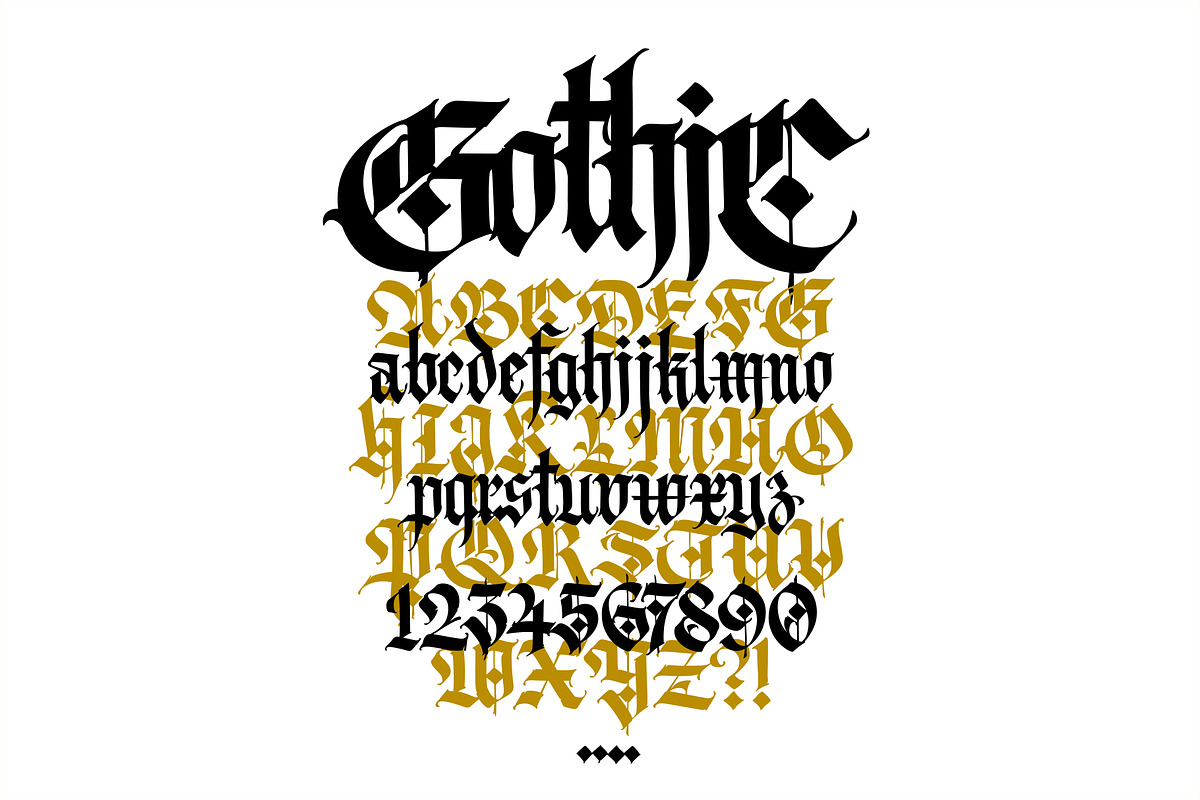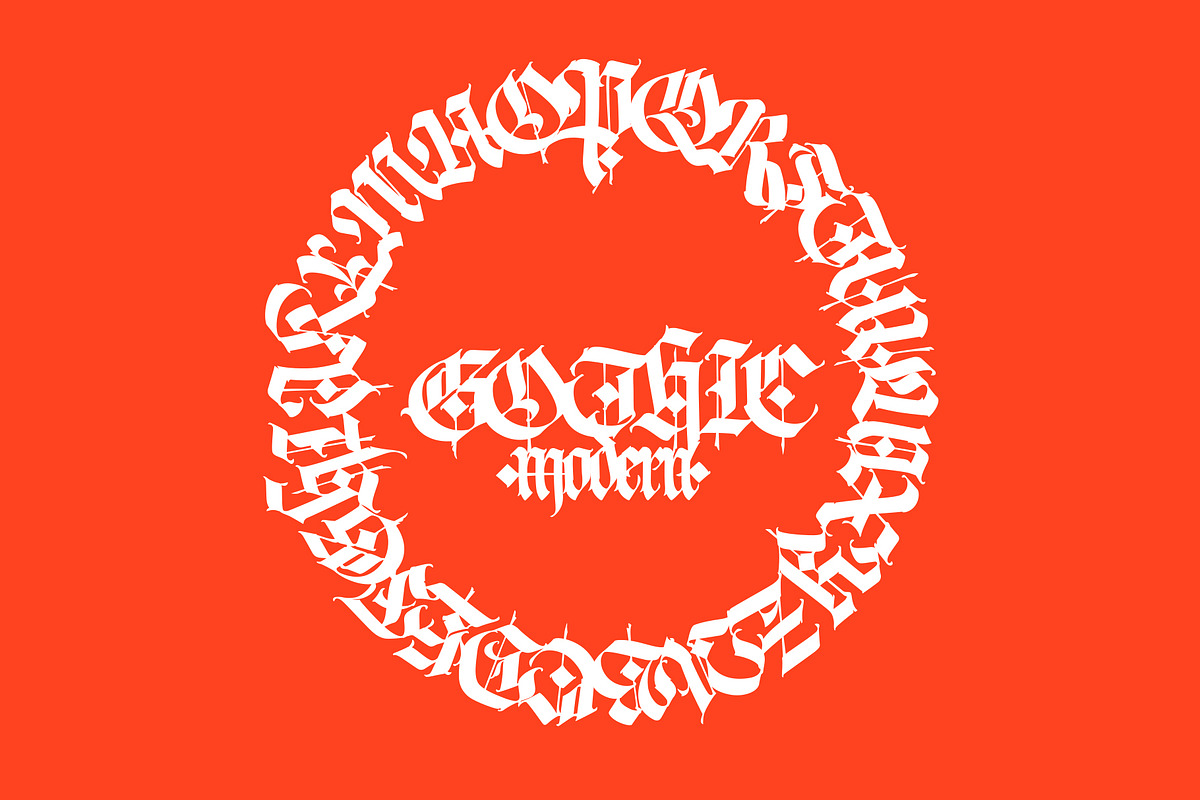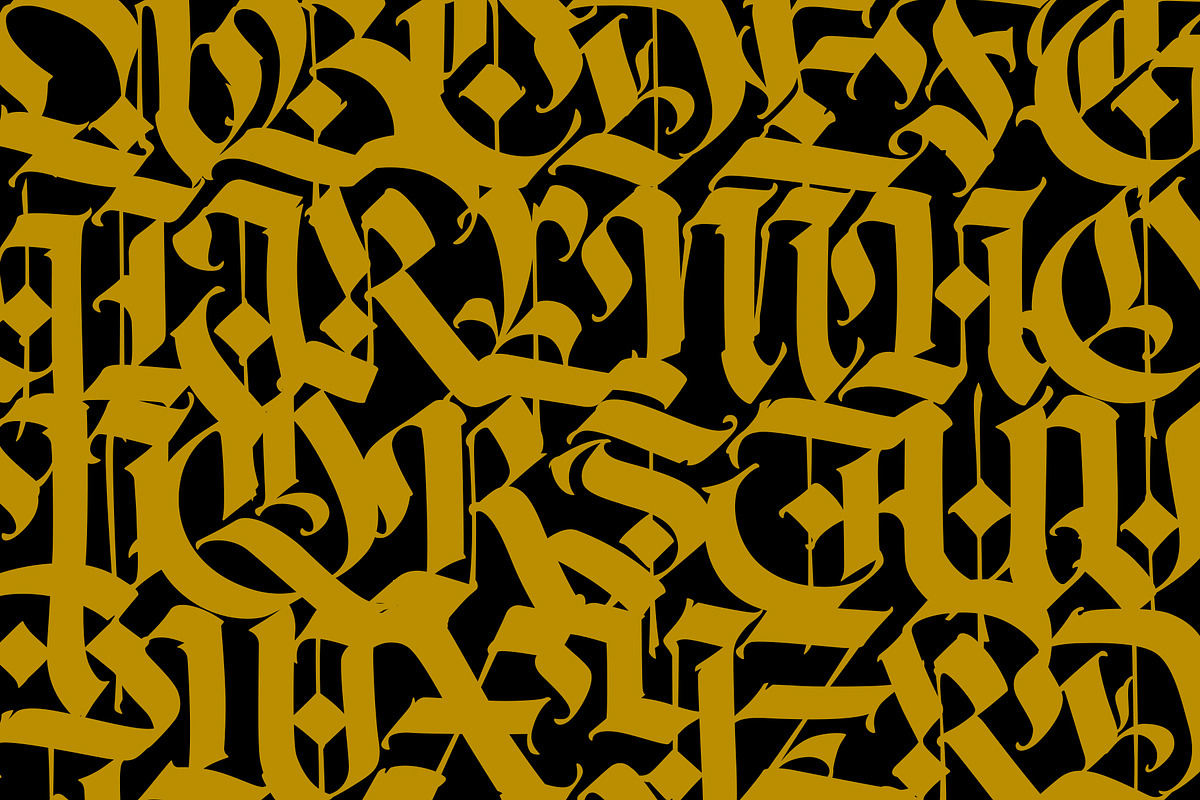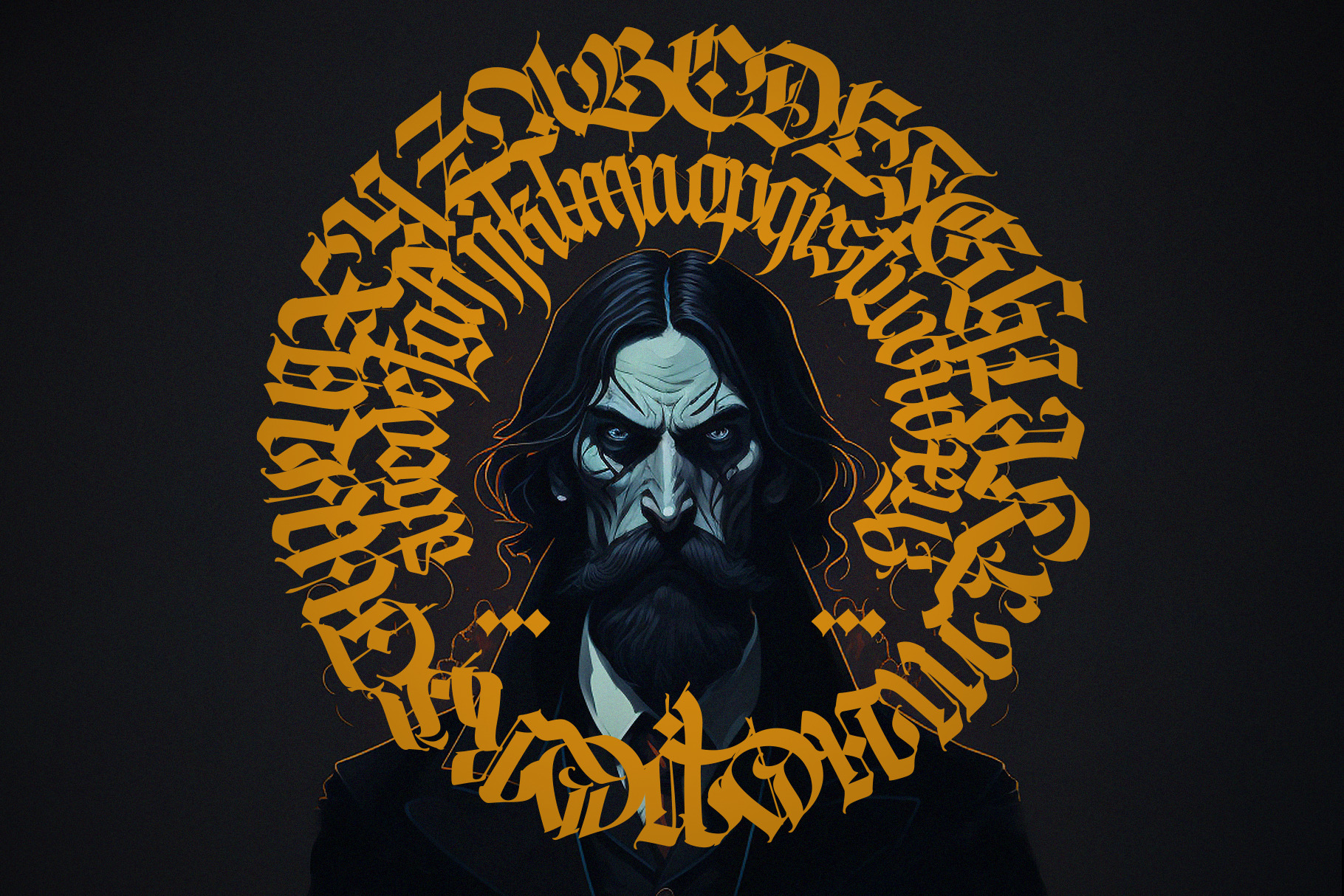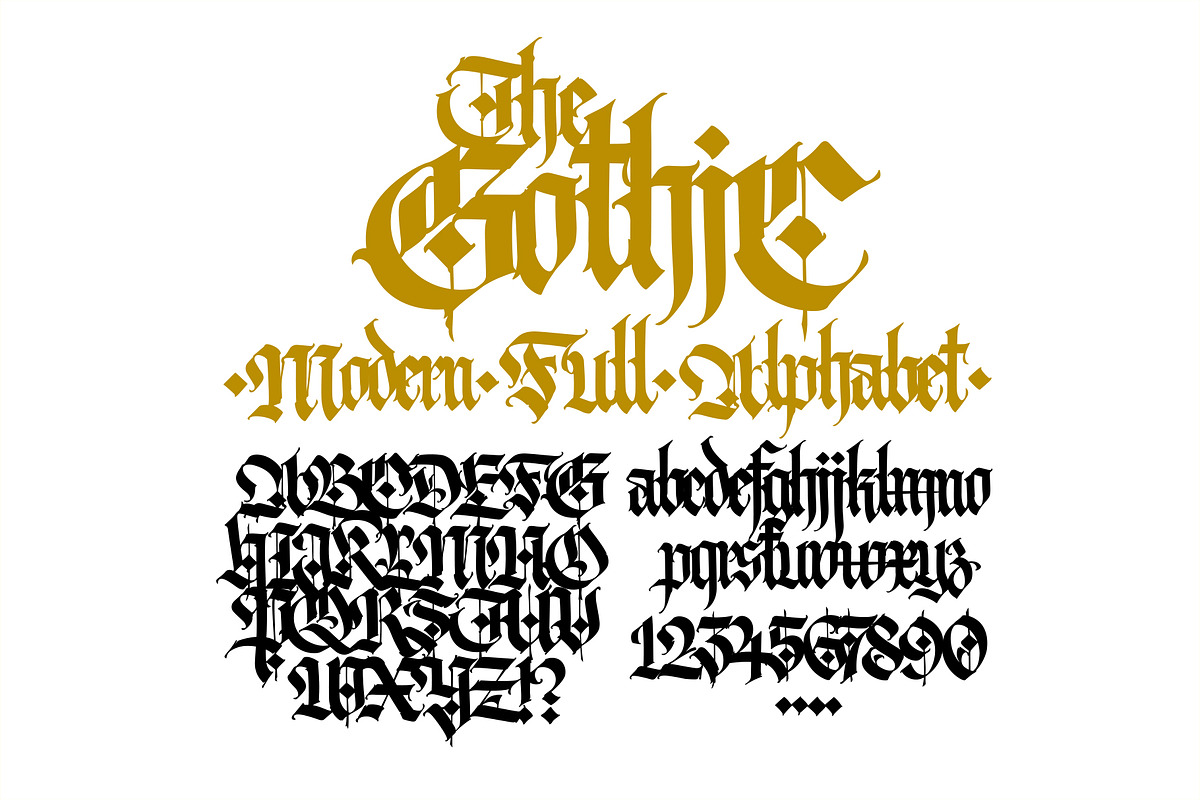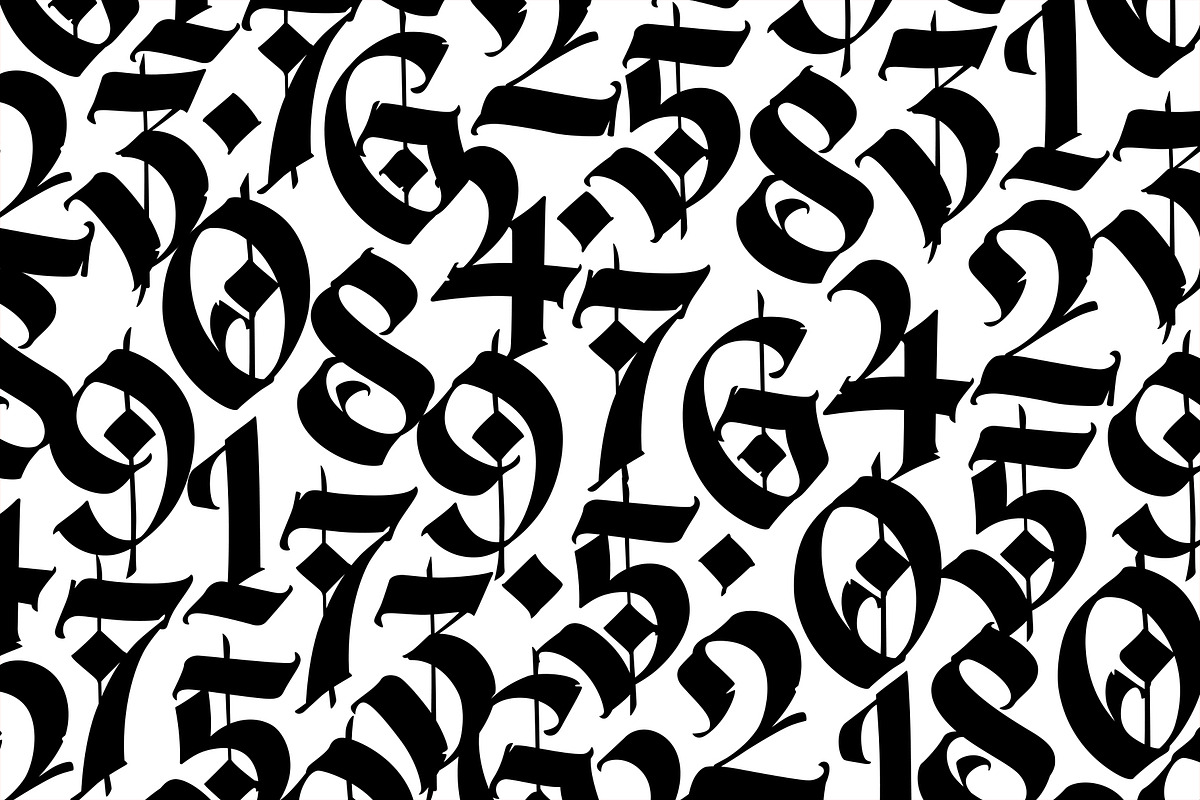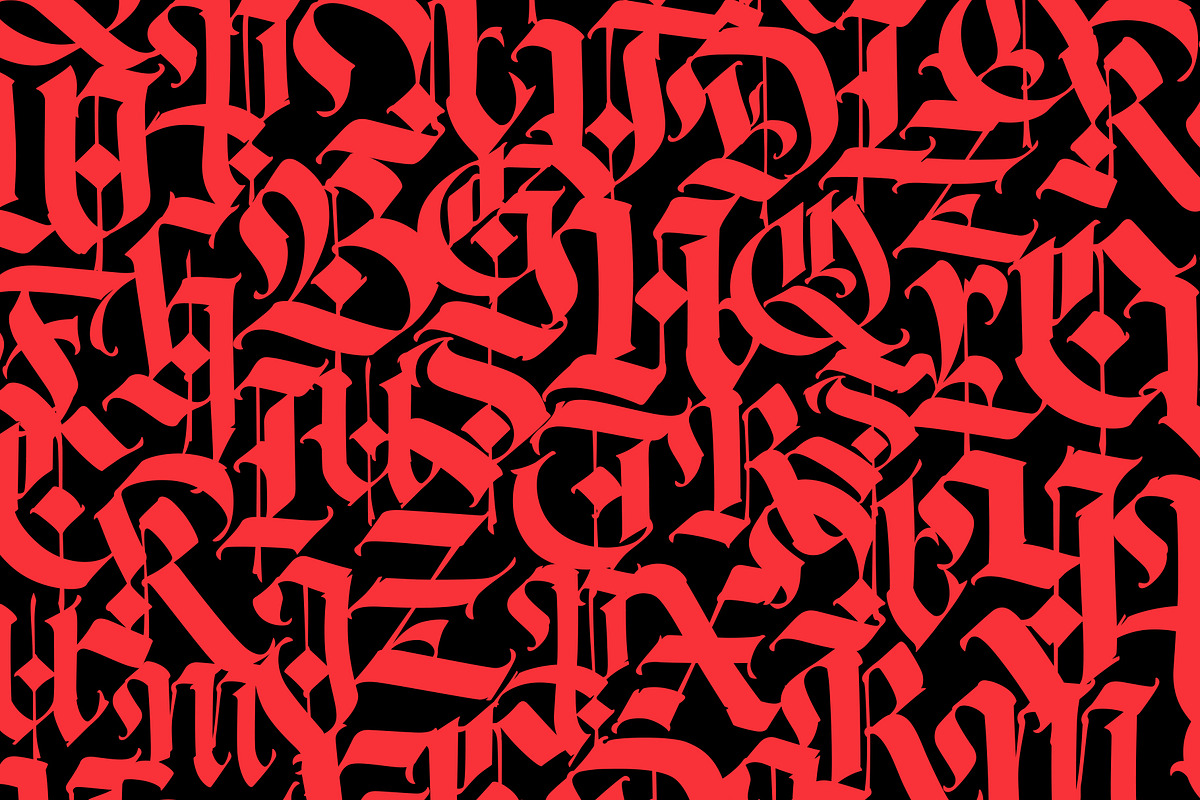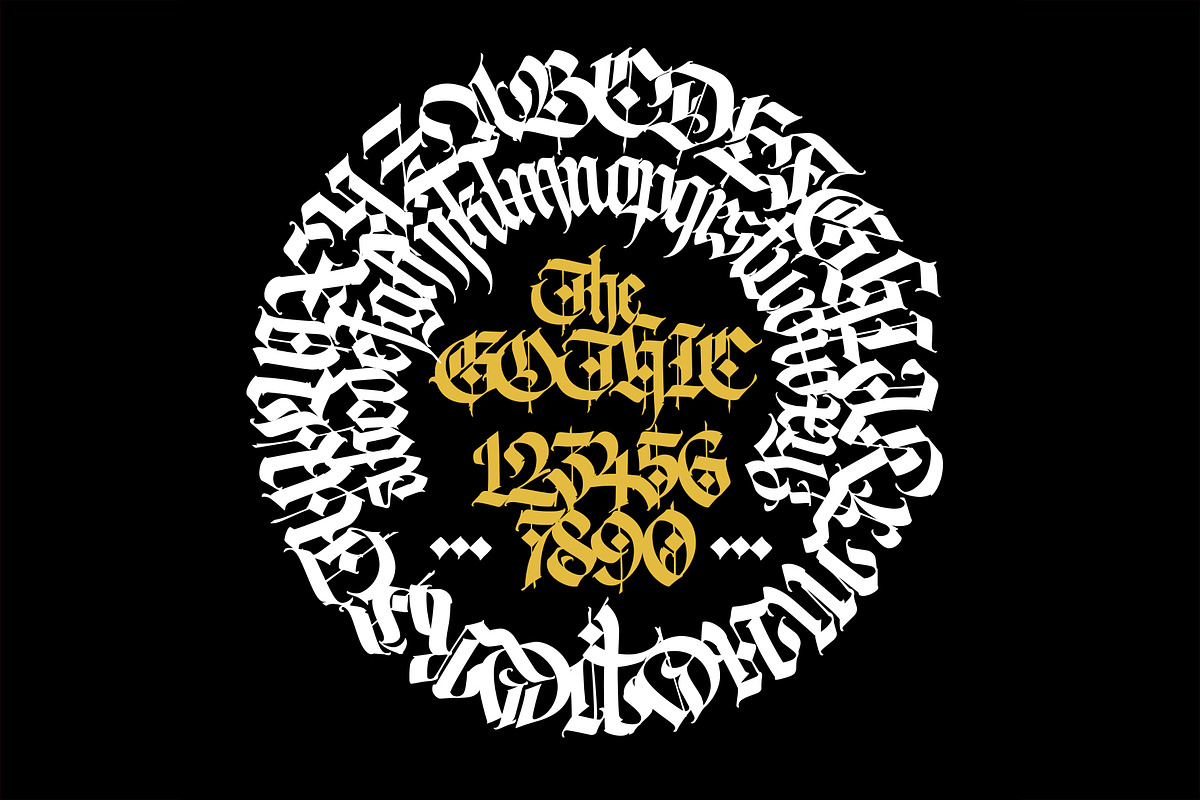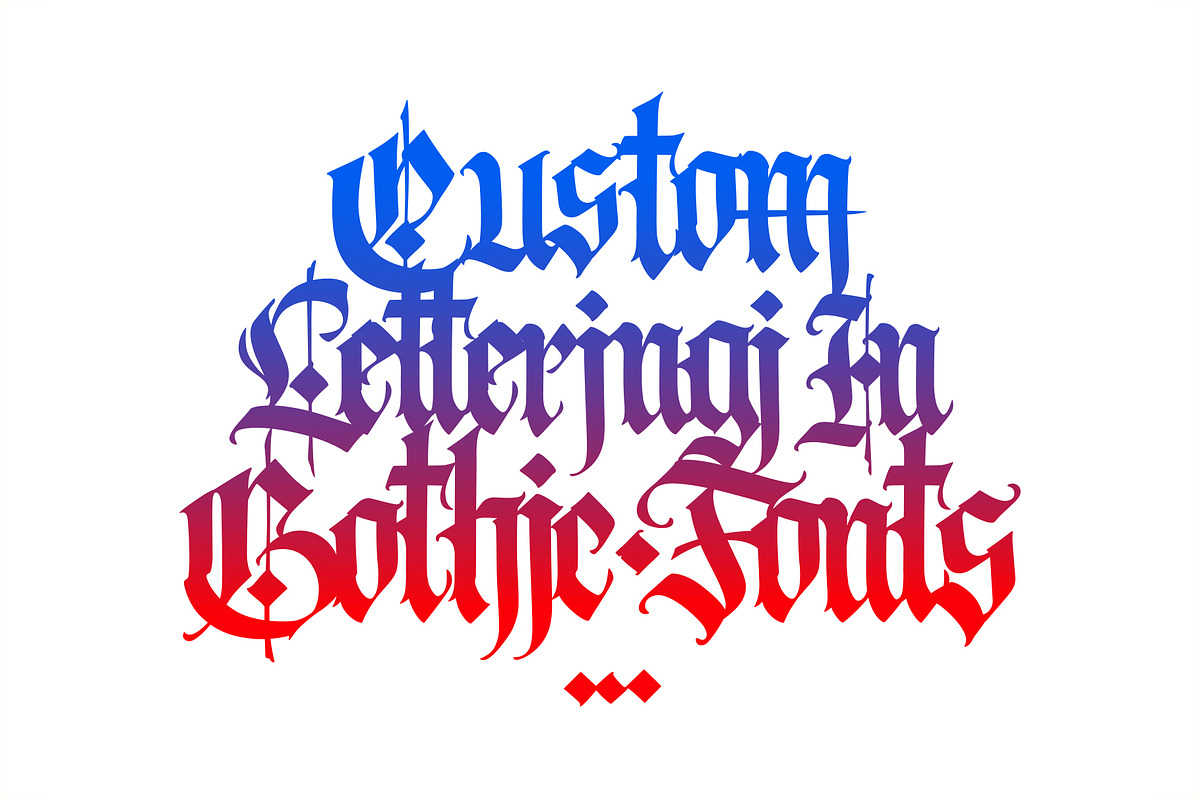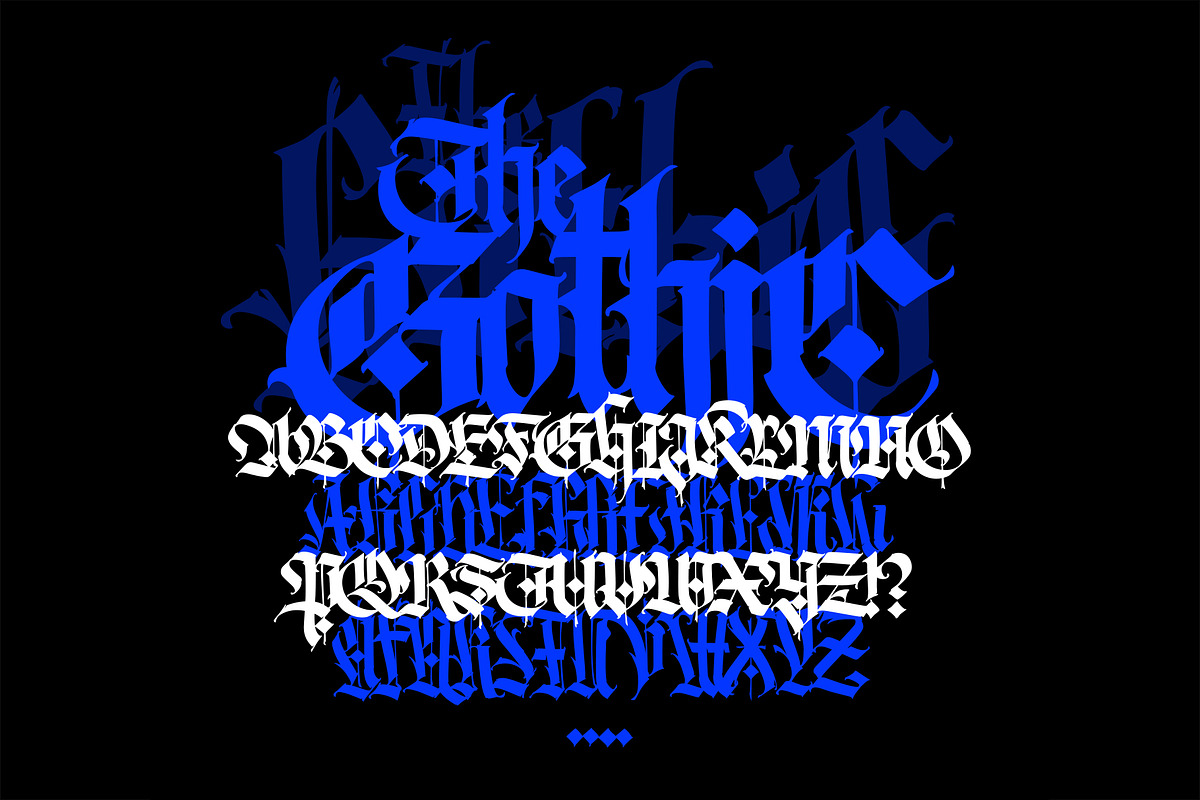
Gothic font 010
Gothic modern font. Capital letters, lowercase letters and numbers. The archive contains font formats .ttf, .otf, .woff. All symbols are saved in vector format .eps and .jpeg. Also, all letters are saved in separate files.
You can also combine this font with other types of fonts according to your needs. This font is perfect for branding, logo design, cover design, books, magazines, apparel designs, headlines, etc
The font contains only latin letters of the English alphabet. In order to use the beautiful swashes, you need a program that supports OpenType features such as Adobe Illustrator, Adobe Photoshop. In the font, only those letters that you see in the screenshots.